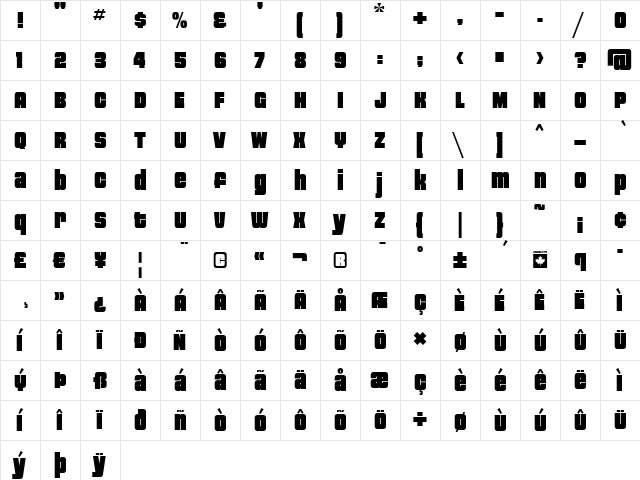
Jazz Gothic Regular
Design Context for Jazz Gothic Typeface
Jazz Gothic has the quiet confidence of well-executed sans-serif typography: versatile, unobtrusive, and dependable at any size.
Font Pairing: Works well alongside a characterful serif or display font that can carry the expressive load while Jazz Gothic handles the functional copy.
Pro Tip: Use Jazz Gothic for UI labels, navigation, and short-form body copy where clean legibility is the priority.